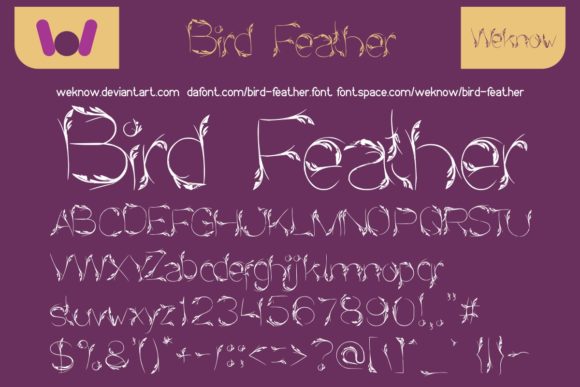
Indulge in the enchanting world of Bird Feather Font, where nature's delicate artistry meets the digital realm. This enchanting display font, crafted with meticulous care by weknow, is a testament to the beauty found in the natural world.
Each character dances across the screen like a fleeting bird in flight, leaving behind a trail of elegance and inspiration. Bird Feather Font is adorned with intricate swashes that flow effortlessly, mimicking the graceful curves of a bird's feather.
With Bird Feather Font, your designs will take wing and soar to new heights. Whether you're crafting invitations that beckon with allure, designing posters that ignite imagination, or creating logos that capture the essence of nature, this font will elevate your creations to extraordinary heights.
Imagine your words painted with the vibrant hues of a bird's plumage, captivating your audience with their beauty and uniqueness. Bird Feather Font is more than just a font; it's an invitation to let your creativity soar.
Embrace the enchantment of Bird Feather Font and witness the transformation of your designs. Let your imagination take flight and create masterpieces that will leave a lasting impression.